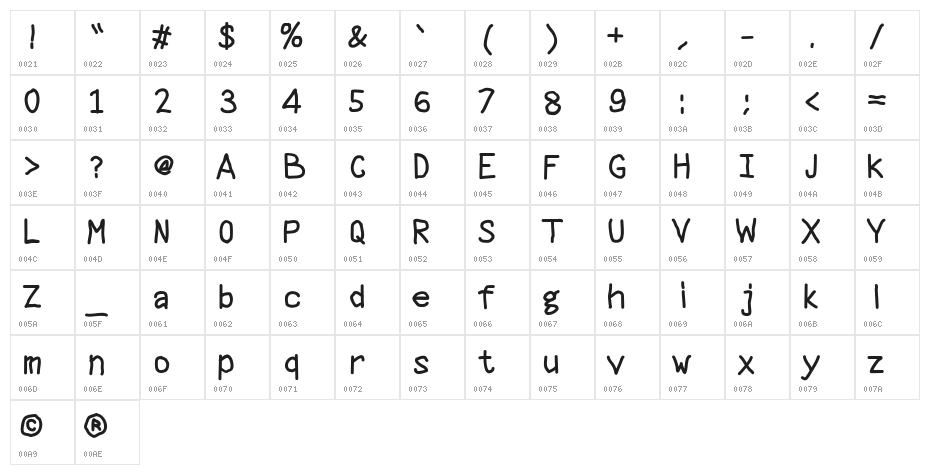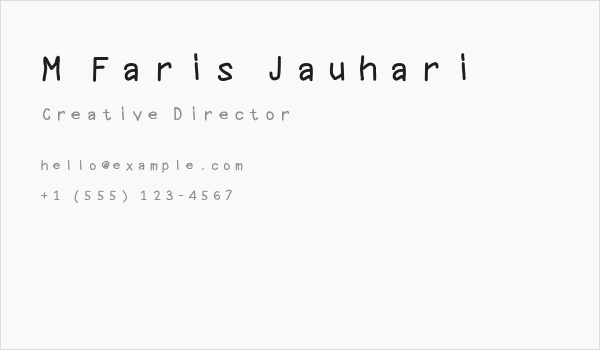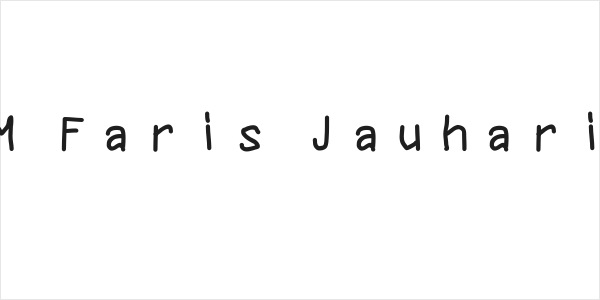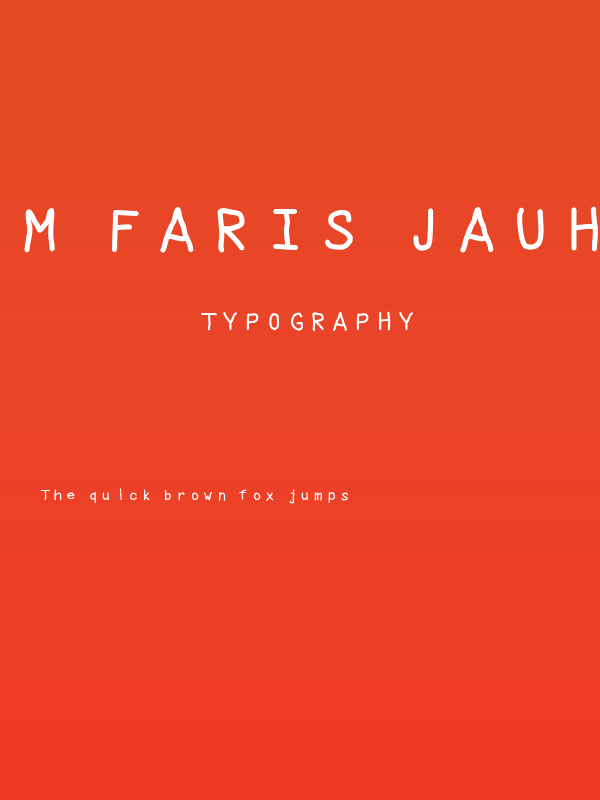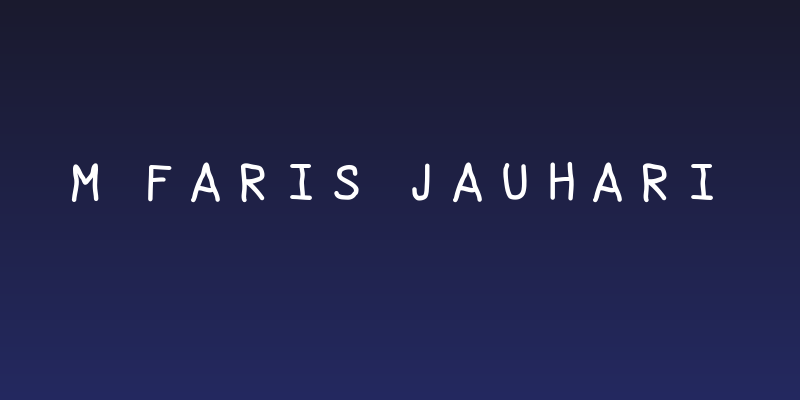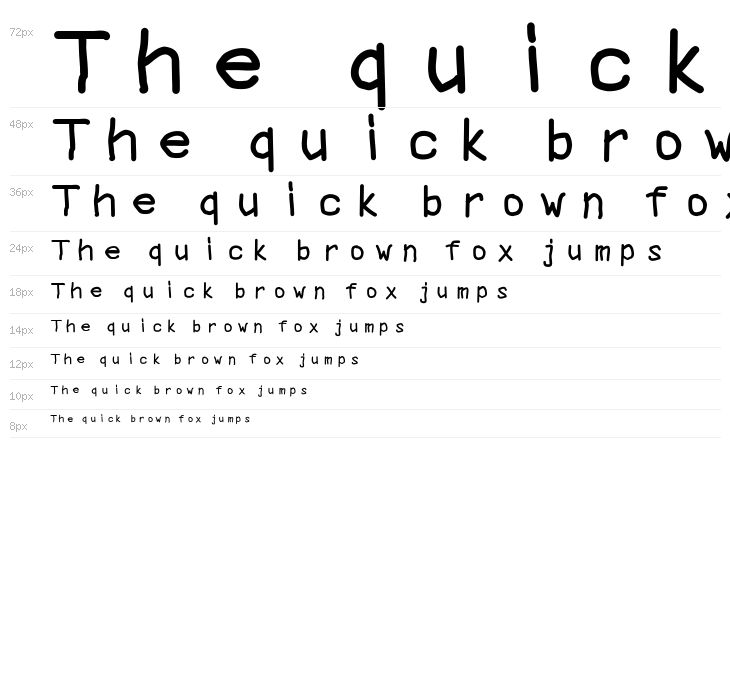
M Faris Jauhari Font
M Faris Jauhari Description
This font features a playful and informal handwritten style, characterized by irregular strokes and a casual appearance. The letters are slightly uneven, giving it a natural, organic feel that mimics the look of handwriting. The uppercase and lowercase letters maintain a consistent style, with rounded edges and a slightly tilted orientation. Numbers and special characters follow the same informal aesthetic, making the font suitable for projects that require a personal touch. The overall design is approachable and friendly, ideal for conveying warmth and creativity.
| Proposed Projects | Ideal for greeting cards, personal blogs, children's books, and creative branding projects. |